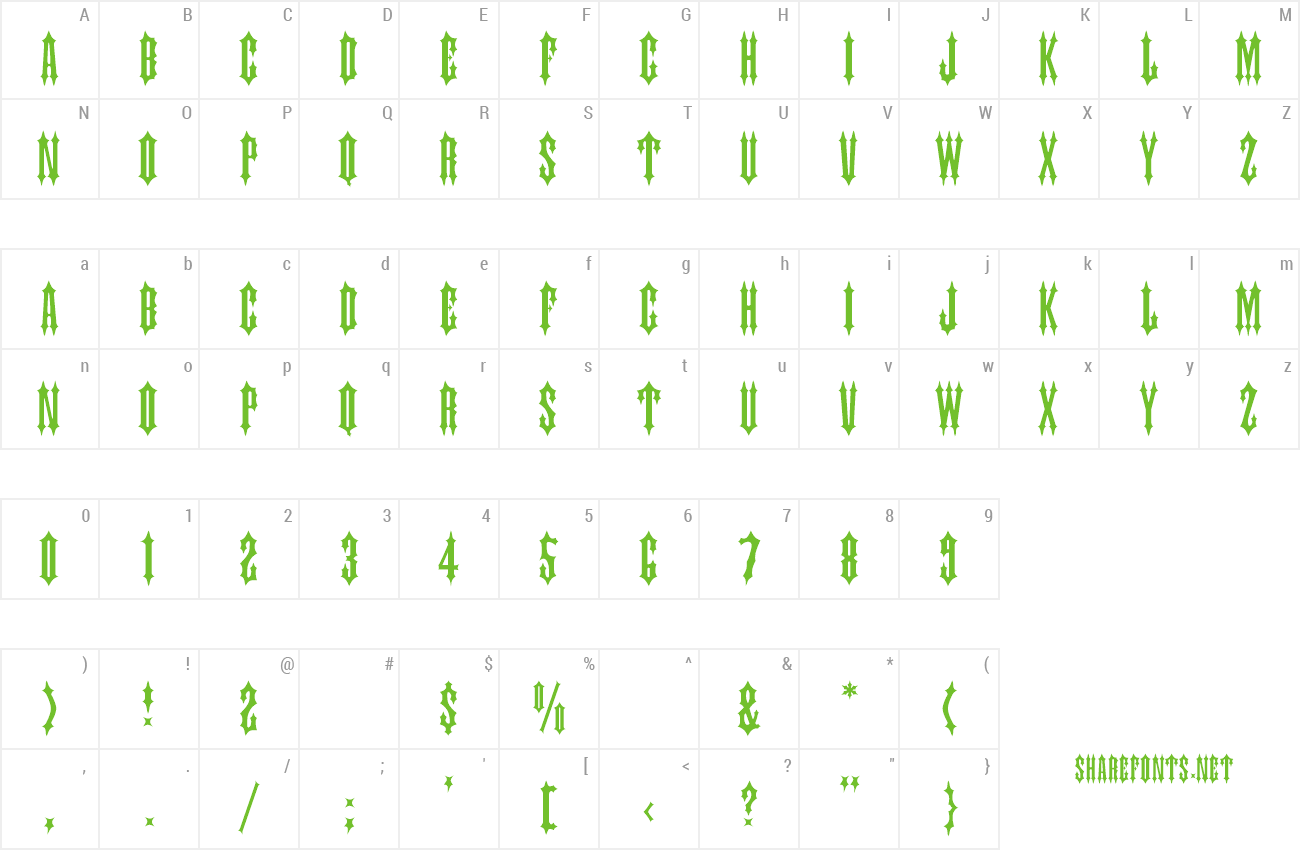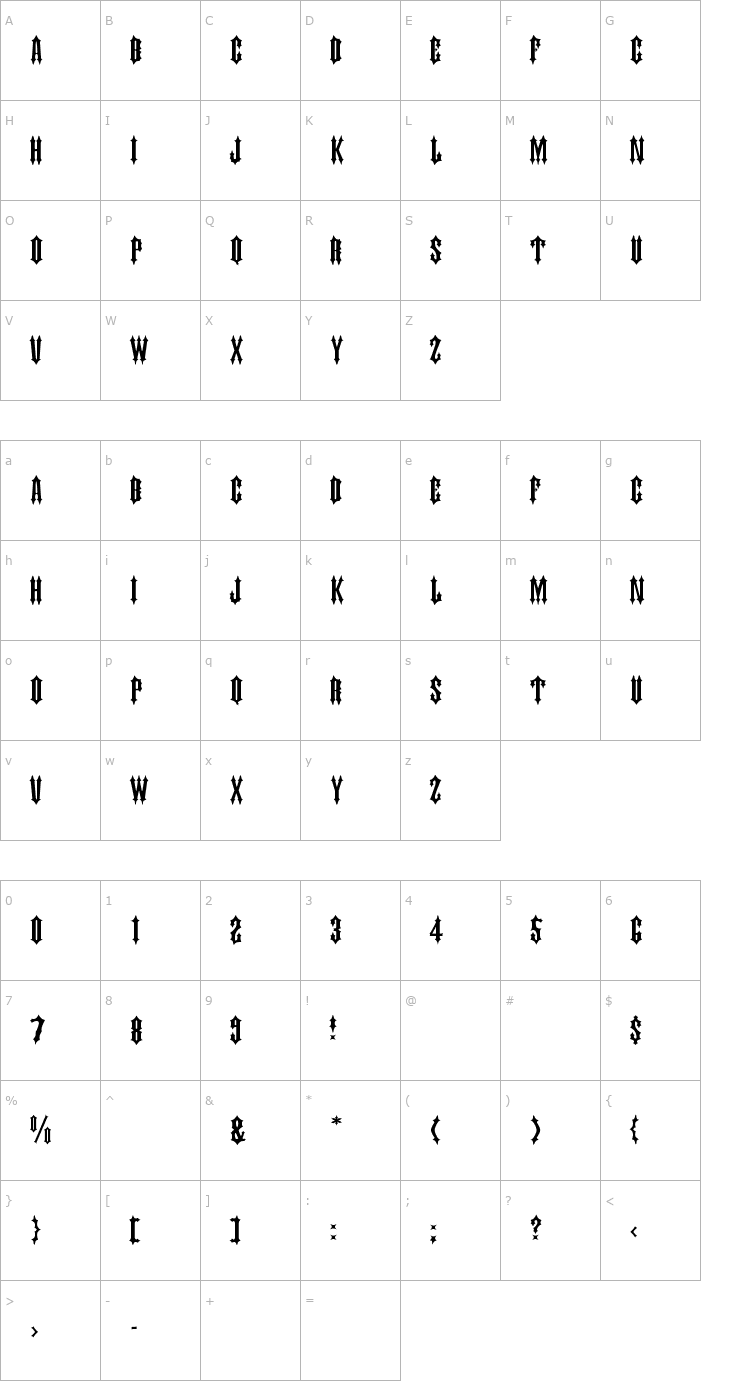
Judas Caps Font - View font details, character map, custom preview, downloads, file. ️ this font has been. Judas caps font is one of the blackletter and tattoo fonts despite the spears in the. Download and install the judascaps wd font for free from ffonts.net. It is a shareware font.
Judas Caps Font